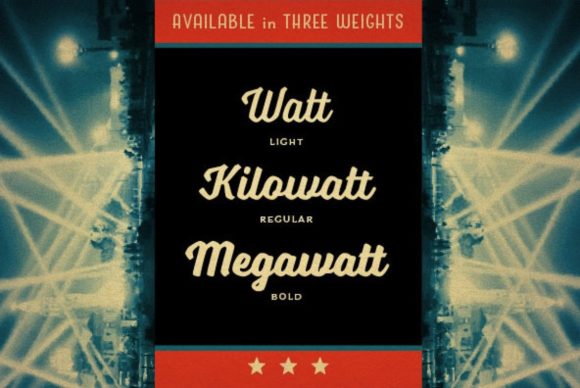
Voltage Family Font
db-ku.com - Script & Handwritten -- Voltage, created by award-winning typeface and lettering designer Laura Worthington, is an unexpected and energetic standout in the world of script fonts, breaking free from formal classifications while retaining the degree of personality we treasure in hand lettering. Her primary goal was unique: readability with personality. Gone are the large loops, the frilliness, and the choice of beauty and elegance over utility.